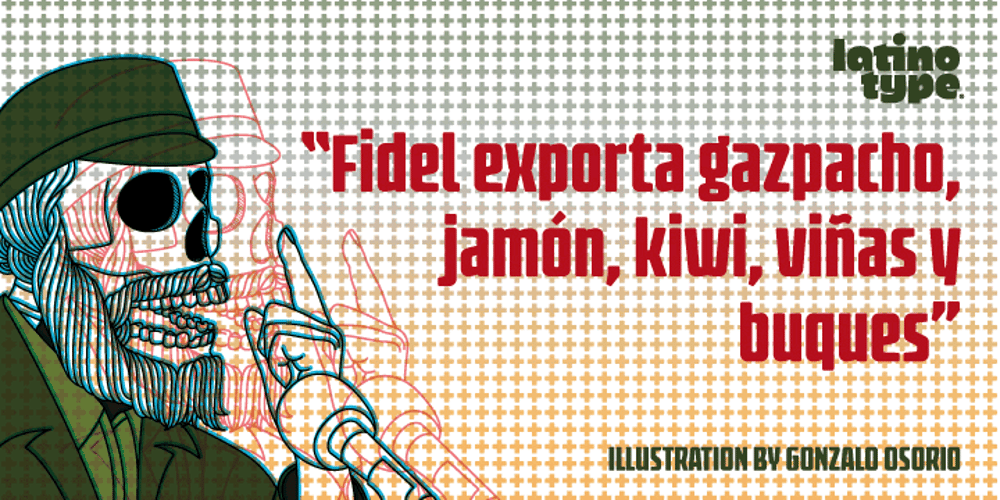
Fidel
Fidel font
Fidel Font Family was designed by Luciano Vergara and published by Latinotype. Fidel contains 3 styles and family package options. Fidel Black Essential is a heavily weighted, condensed, sans-serif typeface with a large x-height. Ideal for short, high-impact headlines, its design is inspired by Russian Constructivism and old Cuban communist posters. Variants include Fidel Black, Fidel Black Italic and Fidel Black Stencil. Fidel Black Essential is an excellent choice for headlines, subheadings, posters and logotypes. Languages: Basic Latin, Euro, Mac OS Roman.